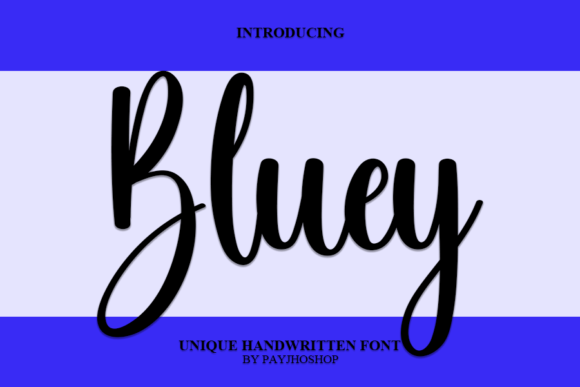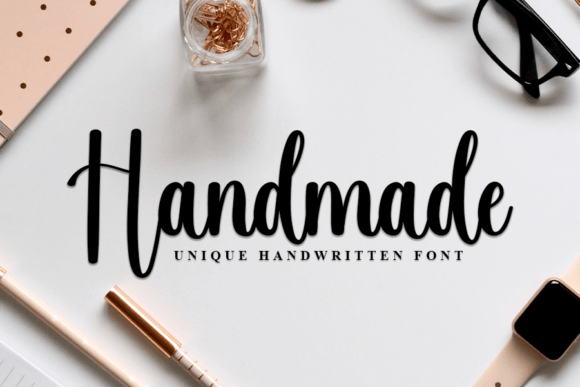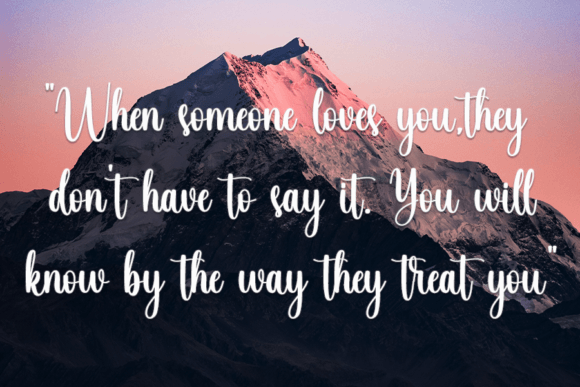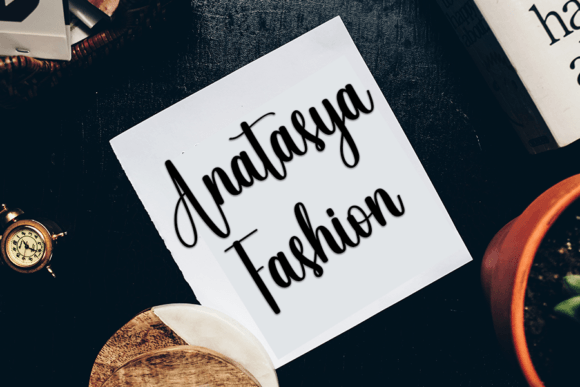
Bluey Font: A Cool Handwritten Font for Cricut & DIY Projects
About the Bluey Font
Add a touch of class to your work with the Bluey Font, a truly exceptional typeface. Bluey is a cool and modern handwritten font. Whether you’re using it for crafts, digital design, presentations, or creating greeting cards, this font has the potential to be your go-to font, whatever the occasion.
Bluey’s casual, handwritten style works exceptionally well in headlines, short text blocks on social media, and branding elements requiring a friendly, approachable feel. It’s ideal for projects targeting a younger demographic or those emphasizing creativity and playfulness, such as children’s books, craft projects, or food packaging. However, its informality makes it unsuitable for large blocks of body text or applications requiring high legibility, like website UI or legal documents.
Pairing Bluey with a clean sans-serif like Open Sans for body copy creates a balanced, readable design. For a more sophisticated look, consider pairing it with a classic serif font such as Garamond, contrasting its hand-drawn charm with traditional elegance. Avoid pairing it with other script fonts, which can create visual clutter and reduce readability.
Bluey’s core personality is undeniably playful and approachable yet modern and stylish. It exudes a youthful energy, making it a strong choice for brands focused on fun, creativity, and connection.